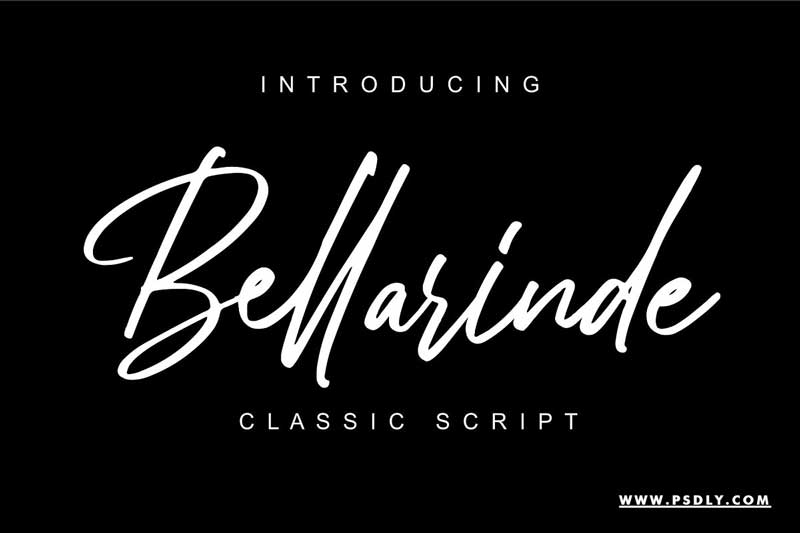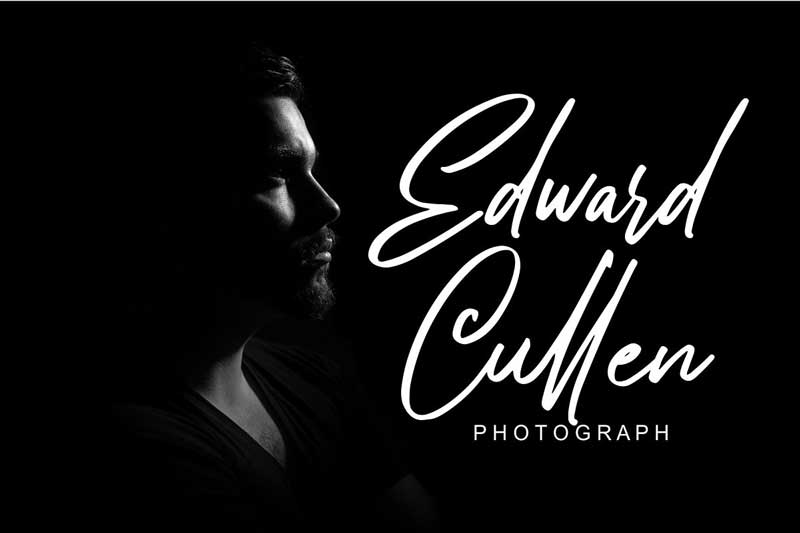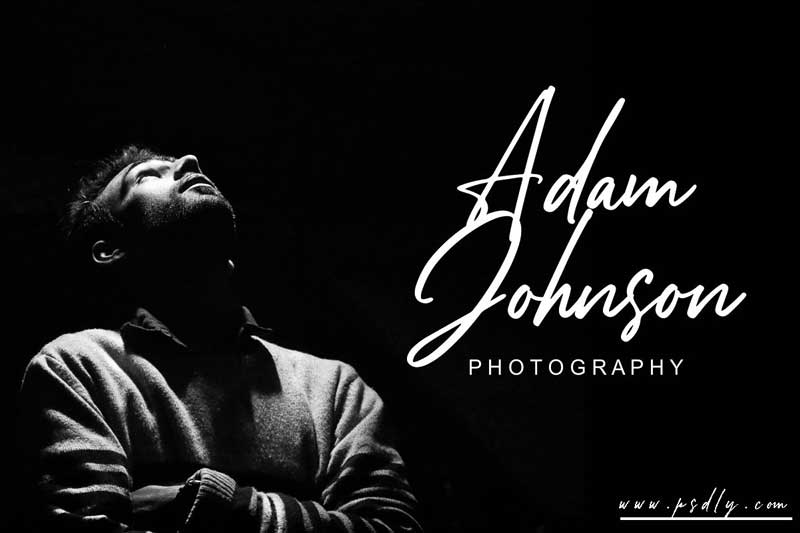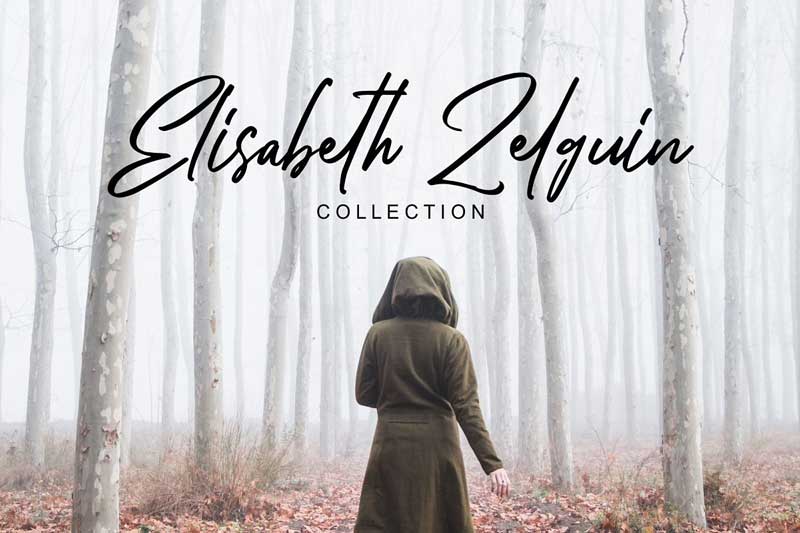
Creativemarket Bellarinde Handwritten Script Font 4434067. Belarind Signature Fonts Each and every letter are tightly crafted to make your content look great. This typeface is suitable for any project such as stationery, invitation, photography, watermark, etc.
Features Of Bellarinde Font
Containing upper & lowercase characters, a full set of punctuation and numerals, with OpenType features with stylistic style and ligatures. Webfonts and OTF and TTF files for all fonts are included.